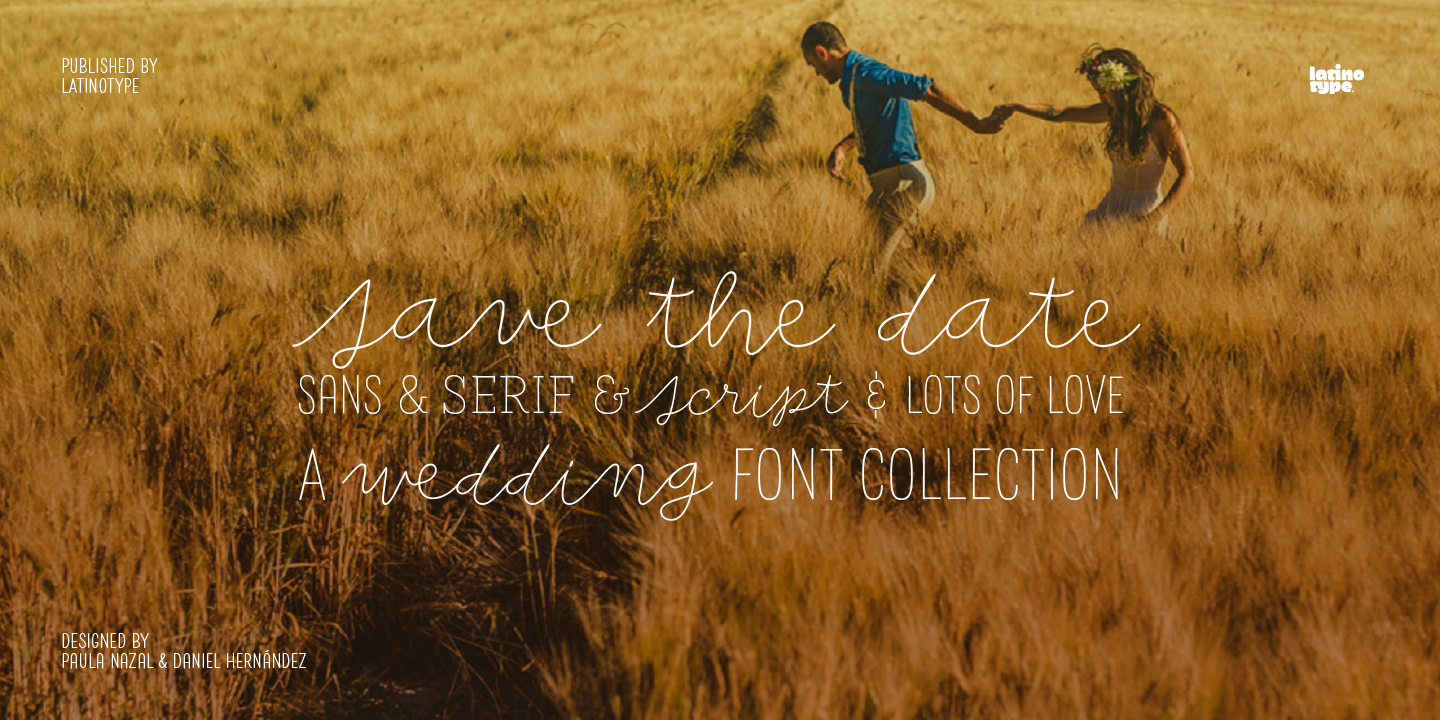
Save The Date Font is ideal for wedding invitation designs, engagement announcement cards, anniversary celebration materials, special event stationery, romantic milestone markers, important date reminders, elegant calendar designs, and memorable occasion communications.
This font is exciting because it captures the anticipation and romantic elegance of life's most important moments with graceful letterforms that make every date feel special and worth celebrating. The Save The Date Font embodies the joy of future celebrations and meaningful connections, transforming ordinary text into heartfelt invitations that create excitement for upcoming special occasions and cherished memories.
The Save The Date Font family includes celebratory variations such as Regular, Bold, Light, Script, Italic, Elegant, Condensed, and Extended versions, providing event designers with comprehensive tools to create romantic typography that celebrates love, commitment, and life's most precious moments across all special occasion applications.
Celebrate life's special moments with Save The Date Font Free Download that brings romantic anticipation to every important event design project. This lovingly crafted typeface combines celebration aesthetics with practical functionality, making it perfect for wedding planners, event coordinators, and couples creating memorable announcements for their most important occasions. The font's elegant character design ensures your message feels romantic and special while maintaining excellent readability across all celebration applications. Whether you're designing wedding stationery, creating anniversary materials, or developing communications for milestone celebrations, Save The Date Font delivers the romantic typography that resonates with couples and families marking life's most precious moments. Its versatile design works beautifully across digital and print media while preserving the celebratory elegance that makes special occasion communications feel genuinely memorable and worthy of the love and joy that define life's most important celebrations and the connections that make them meaningful.